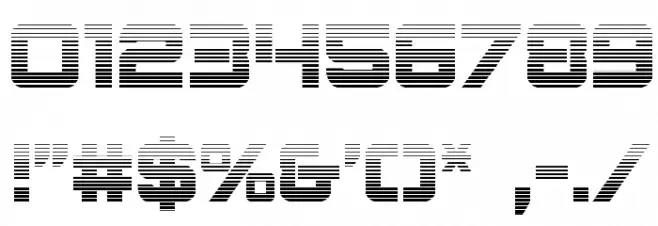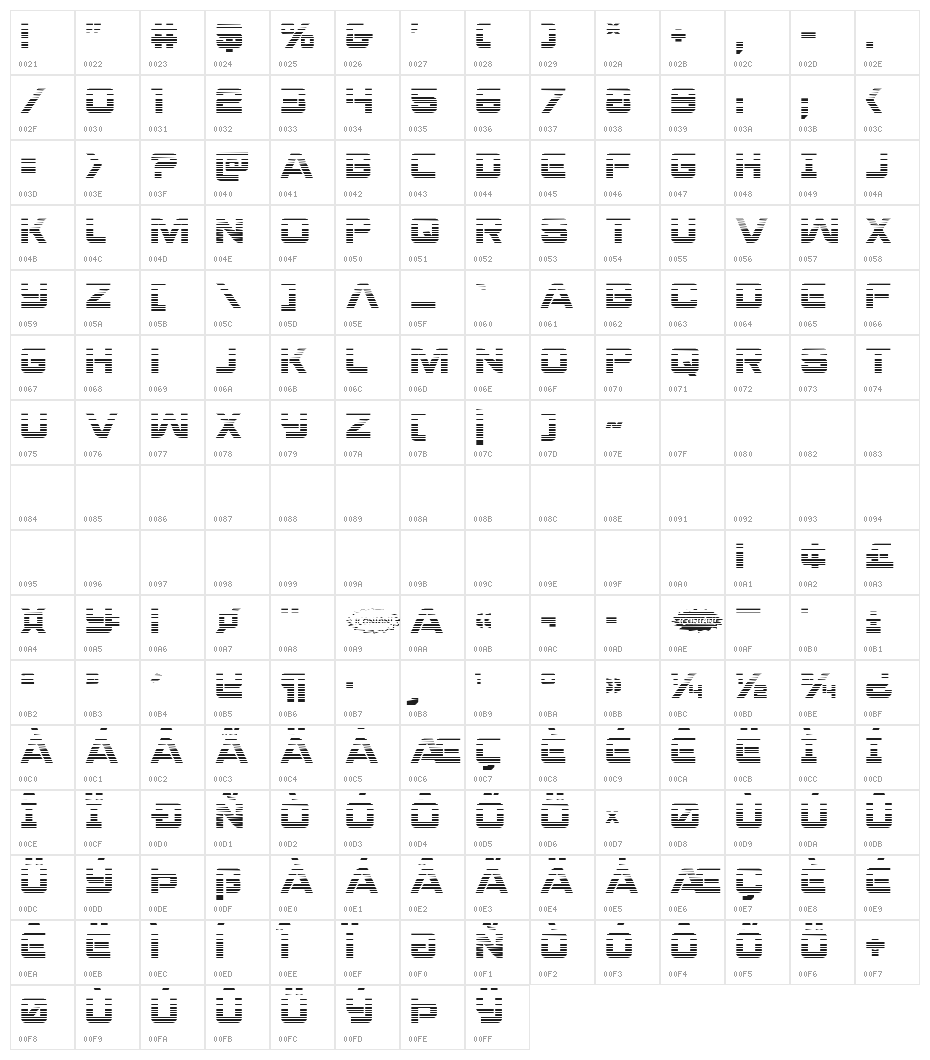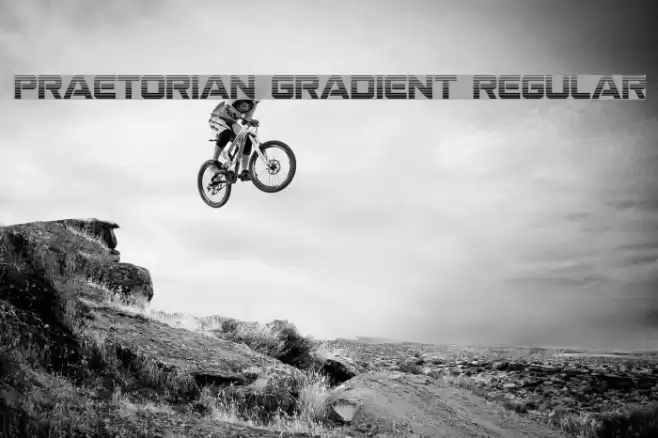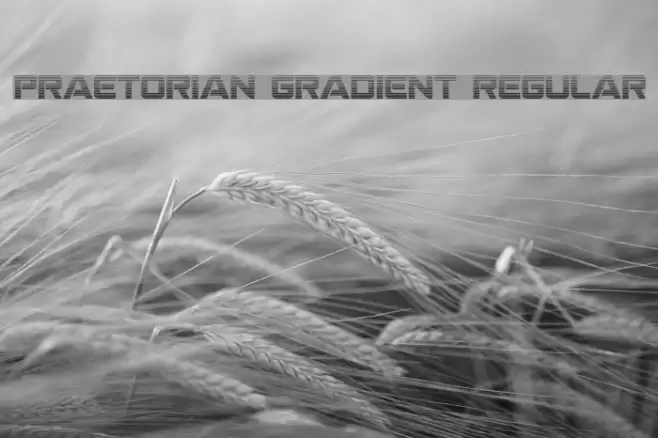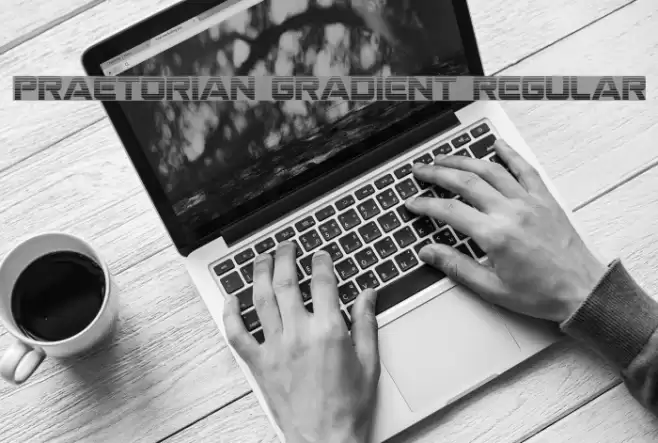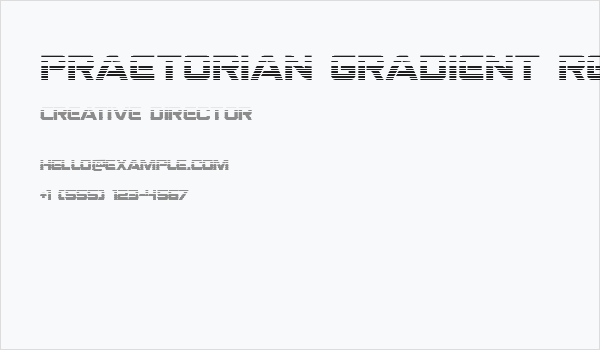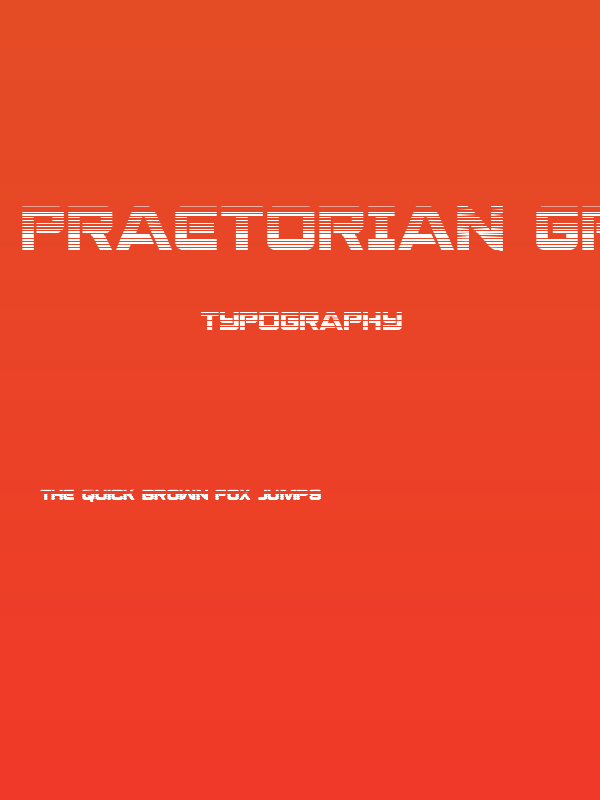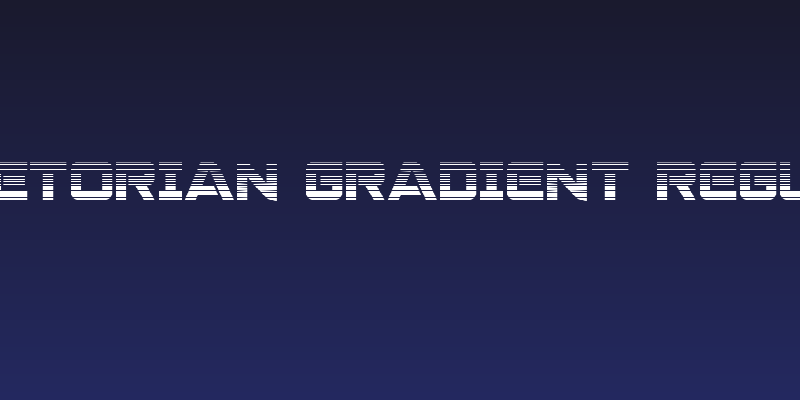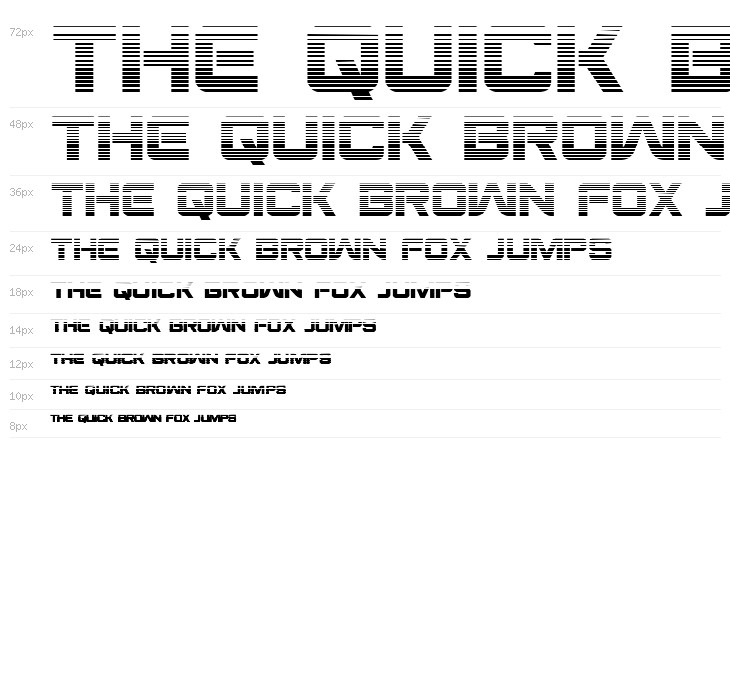
Praetorian Gradient Regular Font
Praetorian Gradient Regular Description
This font features a bold, futuristic design with a distinctive gradient effect created by horizontal lines running through each character. The uppercase and lowercase letters maintain a consistent width, giving it a uniform appearance. The characters are angular and geometric, with sharp edges and a modern aesthetic. The numbers and special characters follow the same design principles, ensuring a cohesive look across all elements. The gradient lines add a sense of depth and dimension, making it ideal for eye-catching designs.